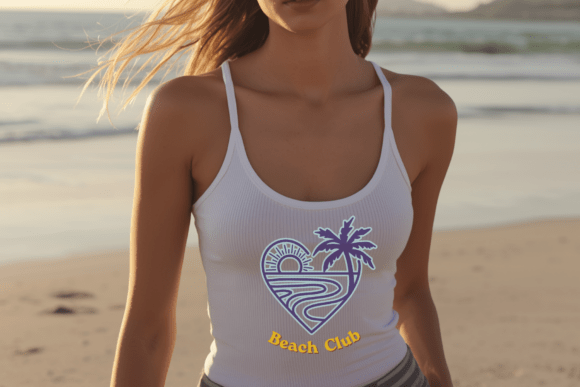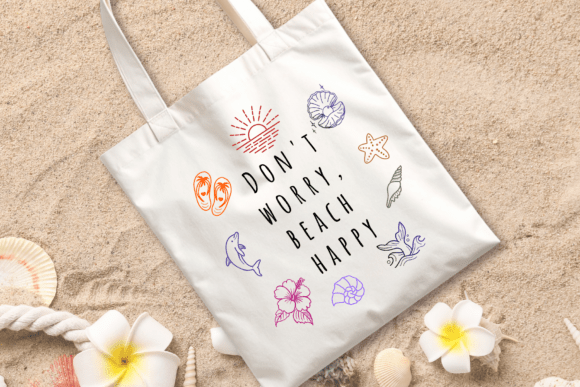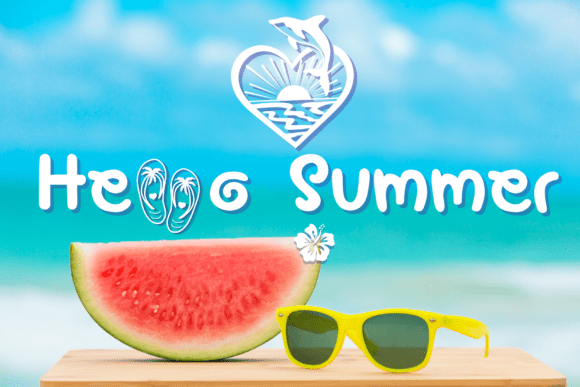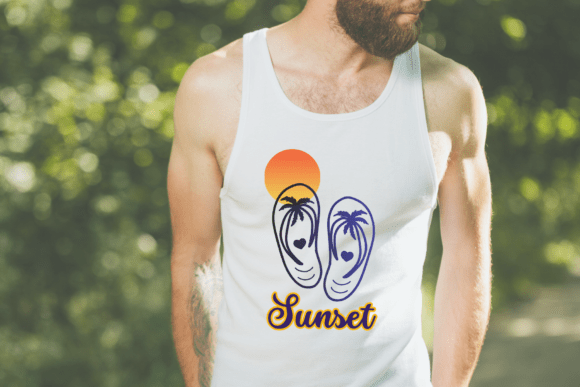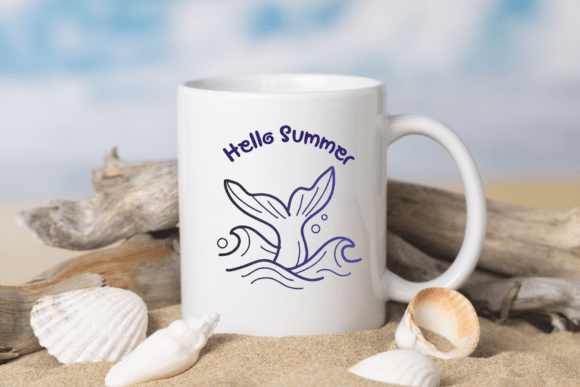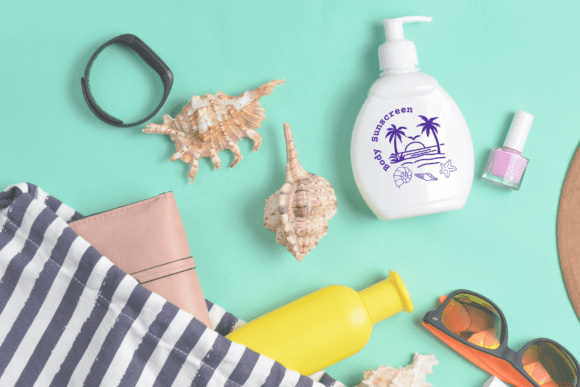
Get Ready to Dive into Summer Vibes with Beach Club Doodle Font
Do you ever find yourself scrolling through social media, feeling inspired by the carefree beachy vibes and instantly wanting to create something that captures the essence of summer? I know I do! There’s something about the sound of waves, the smell of saltwater, and the warmth of the sun on your skin that just makes you feel alive.
That’s why I’m excited to introduce you to Beach Club Doodle Font, a fun and stylish collection of tropical beach-themed dingbats designed to bring a touch of summer magic to your designs. This versatile font is perfect for designers, crafters, and small businesses looking to create eye-catching summer projects, ocean-themed branding, and tropical creative products. With its clean line art and modern style, Beach Club Doodle Font is sure to become your go-to font for all things beachy.
Beach Club Doodle Font Key Features
- Unique Characteristics: The font features a playful, hand-drawn design with a beach club theme, perfect for creating a fun and relaxed atmosphere in designs.
- Character Set: The font includes a wide range of characters, including uppercase and lowercase letters, numbers, and punctuation marks.
- Style Options: Beach Club Doodle Font comes in a single style, but its unique characteristics can be used to create various effects, such as bold and italic text.
Designer Review: Beach Club Doodle Font
Overall, I’m really enjoying the Beach Club Doodle Font! Here’s my honest review:
- The playful, hand-drawn aesthetic is perfect for summer vibes and tropical projects.
- The font is highly customizable, allowing me to adjust the spacing and size to suit my design needs.
- The set includes a wide range of characters, including punctuation and special characters, which is a big plus.
- The font can be a bit difficult to read at small sizes, especially in digital formats.
- The irregularities in the letterforms can make it challenging to achieve perfect alignment.
- While the font is fun and playful, it may not be suitable for more formal or corporate designs.
Overall, I think the Beach Club Doodle Font is a great addition to my design library. While it has some limitations, its unique charm and customization options make it a great choice for the right projects. I’d definitely recommend it to designers looking for a fun, beachy vibe!
Use the Beach Club Doodle Font to create eye-catching titles, headings, and quotes for your beach-themed designs.
Use the Beach Club Doodle Font to create intricate and whimsical designs for your beach-themed projects.
Use the Beach Club Doodle Font to add a touch of beachy charm to your presentations and documents.
The Beach Club Doodle Font is perfect for creating beach-themed designs, such as:
- Beach party invitations
- Summer vacation posters
- Beach-themed social media graphics
- Personalized beach towels and accessories